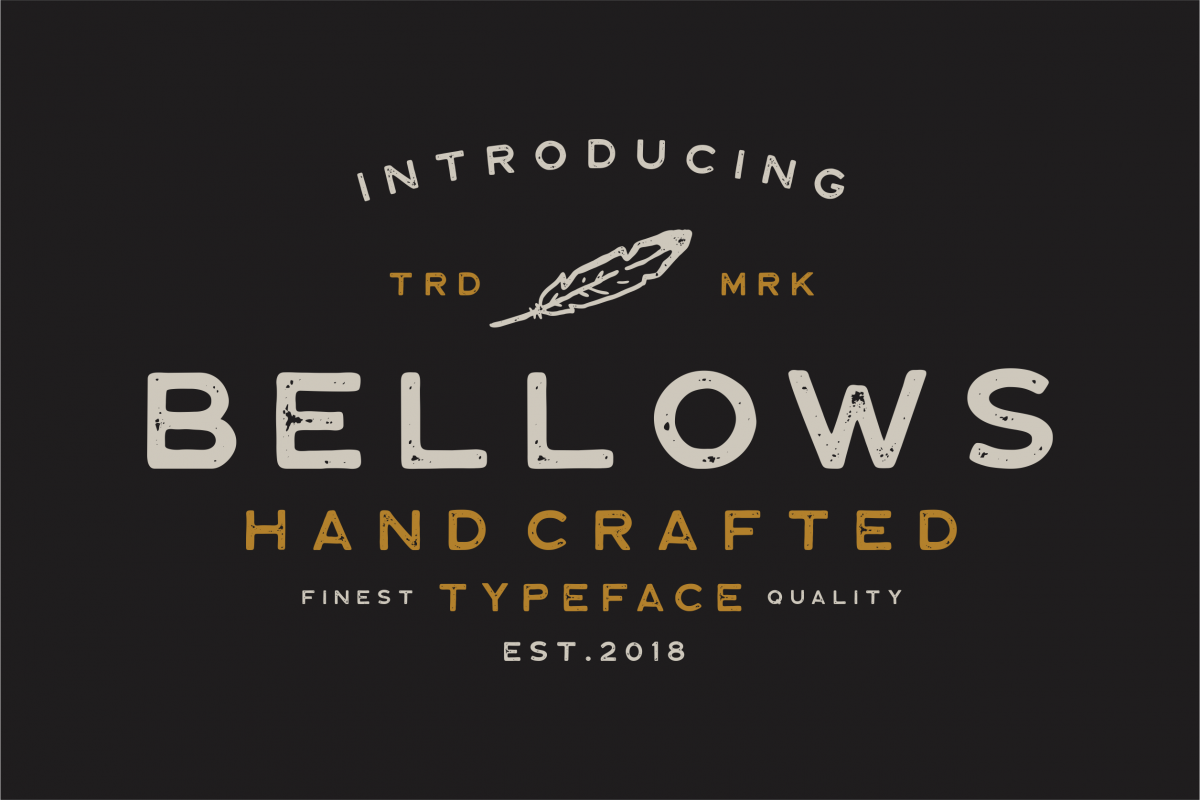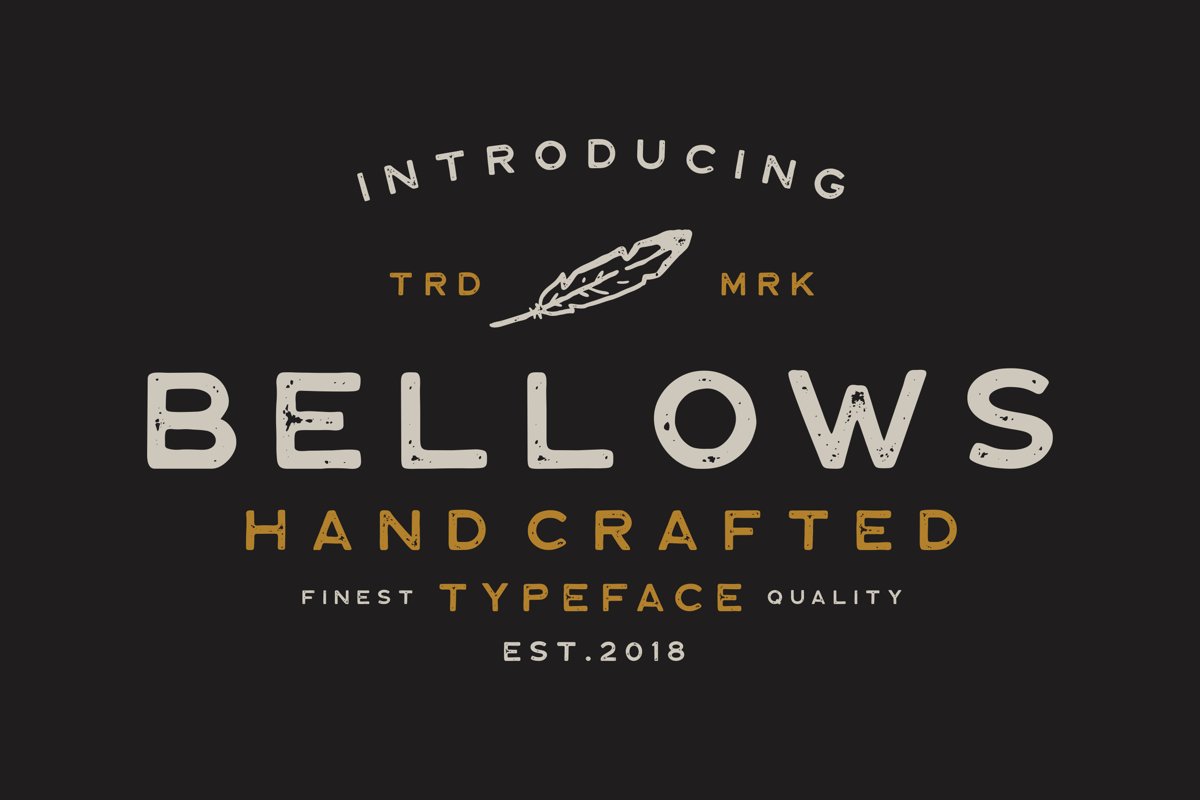
Bellows Typeface
BELLOWS was my first artificial typeface.two simple typeface that comes with a subtle vintage style. entirely done by hand with a very original. Comes with 2 styles, regular and textured. Very ready to make your projects more beautiful and simple.